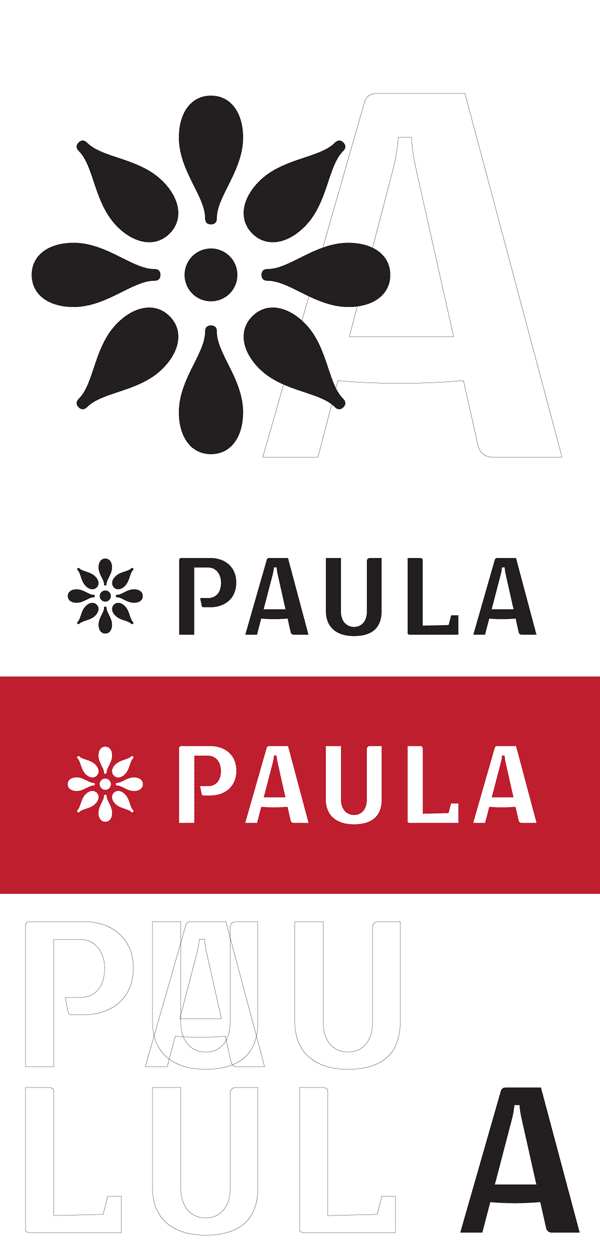
In 2007, we worked together with the editorial team of Paula Magazine, redesigning this for their 40th Anniversary edition. This included the design a of a new logotype.
Magazine’s design was changed again in 2009, maintaining our logotype design, with the flower icon as a main element, rescued from the original design.
En 2007, trabajamos junto al equipo editorial de Revista Paula, rediseñándola para la edición Aniversario 40º. Ello incluyó el desarrollo de un nuevo logotipo.
El diseño de la revista volvió a cambiar en 2009, manteniendo el diseño de logotipo, con el ícono flor reinterpretado desde el diseño original, como elemento principal.